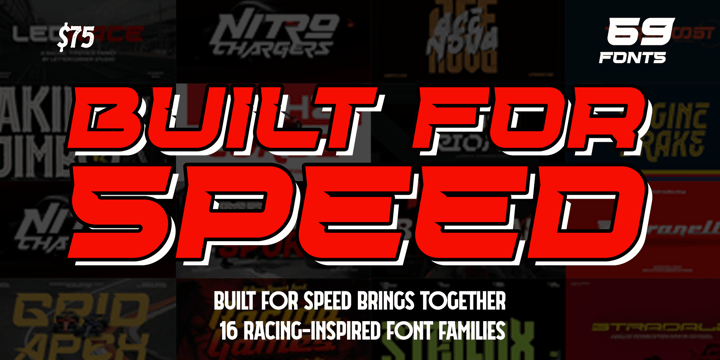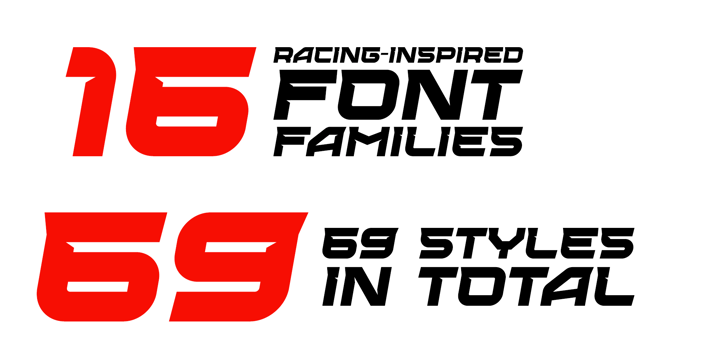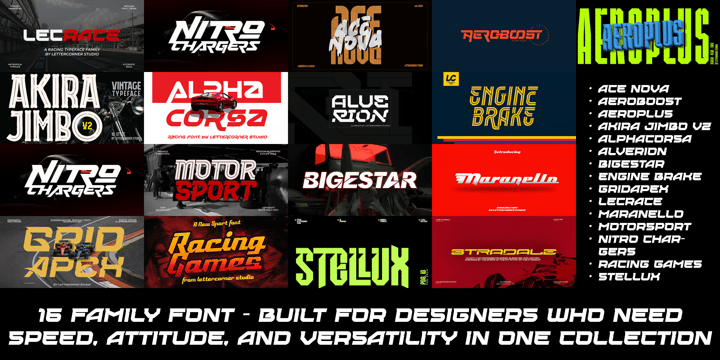
Built for Speed
Built for Speed brings together 16 racing-inspired font families — 69 styles in total — designed to capture the raw energy of motorsport in every letterform. This collection includes Ace Nova, Aeroboost, Aeroplus, Akira Jimbo v2, Alphacorsa, Alverion, Bigestar, Engine Brake, Gridapex, Lecrace, Maranello, Motorsport, Nitro Chargers, Racing Games, Stellux, and Stradale.
Each family brings its own personality to the track: sharp condensed cuts like Aeroplus and Stradale for bold headlines, aggressive italics like Maranello and Motorsport for a sense of forward motion, futuristic inline styles like Akira Jimbo v2 and Engine Brake for detailed badge work, and clean sporty display faces like Alphacorsa, Gridapex, and Nitro Chargers for logos and numbering. With such a wide range of weights, italics, and structural variants, this bundle covers everything from full racing team identities to esports branding, automotive posters, streetwear graphics, and gaming UI.